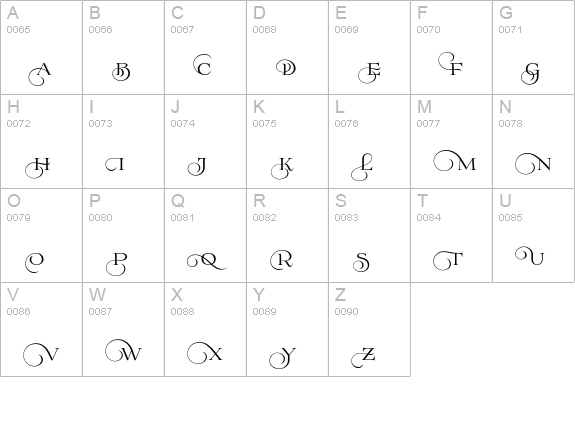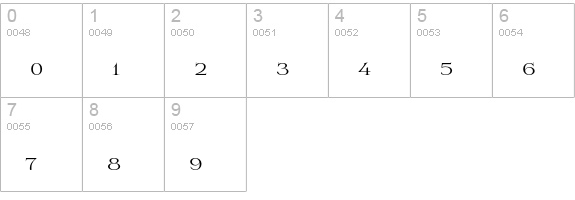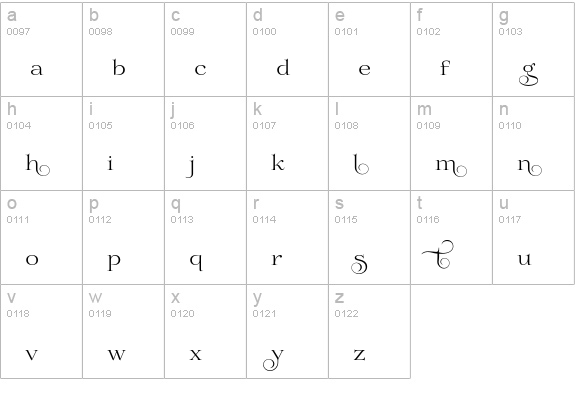
Prida02Calt font is a stunning display typeface that is perfect for adding a touch of elegance and sophistication to your designs. With its unique and eye-catching letterforms, this font will surely make a statement and capture the attention of your audience. Featuring beautifully crafted characters with stylish curves and intricate detailing, Prida02Calt font exudes a sense of luxury and refinement. Its versatile nature makes it suitable for a wide range of design projects such as logos, titles, headlines, invitations, and more. What makes Prida02Calt font even more appealing is that it is available for free download at FontsMarket.com. This means that you can easily access and utilize this extraordinary font without any cost. Whether you are a professional designer or a hobbyist, Prida02Calt font provides you with a valuable resource to enhance your creative endeavors. So, why wait? Start incorporating the beauty and versatility of Prida02Calt font into your designs today. Download it for free at FontsMarket.com and unlock a world of possibilities to elevate your projects to new heights.